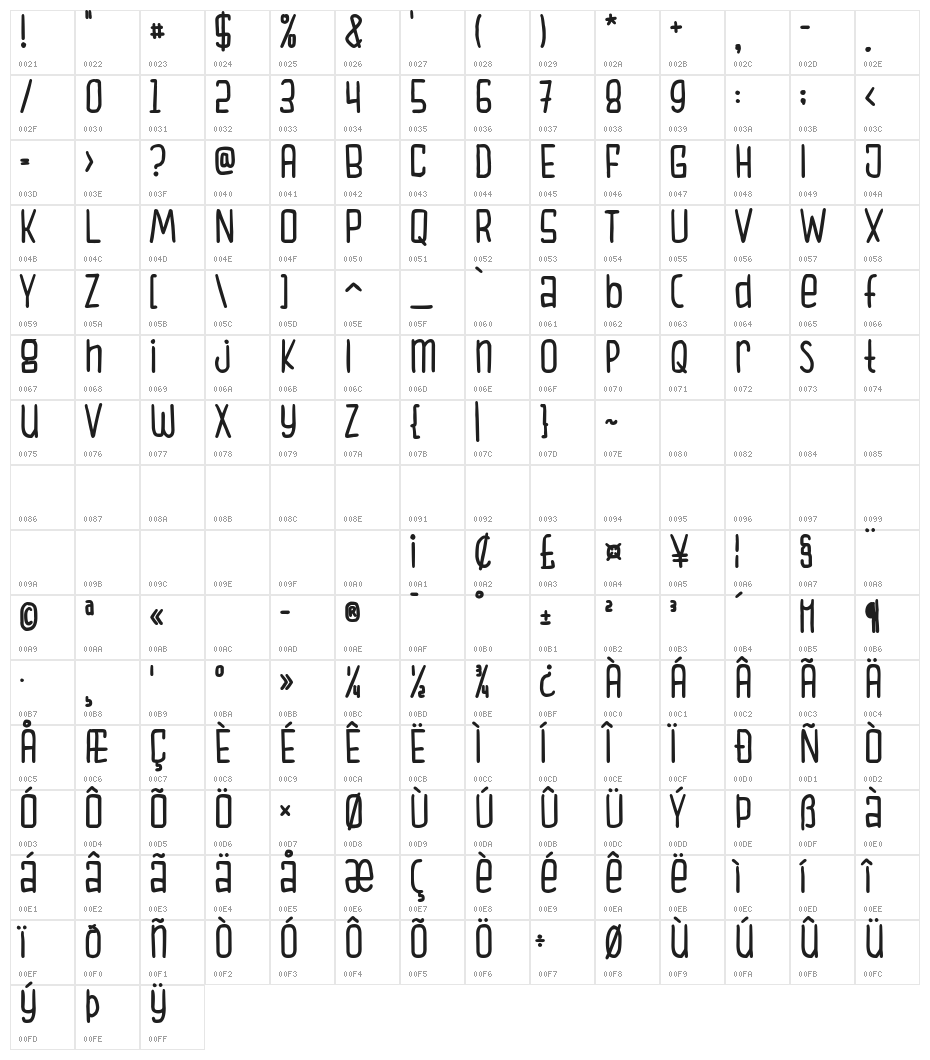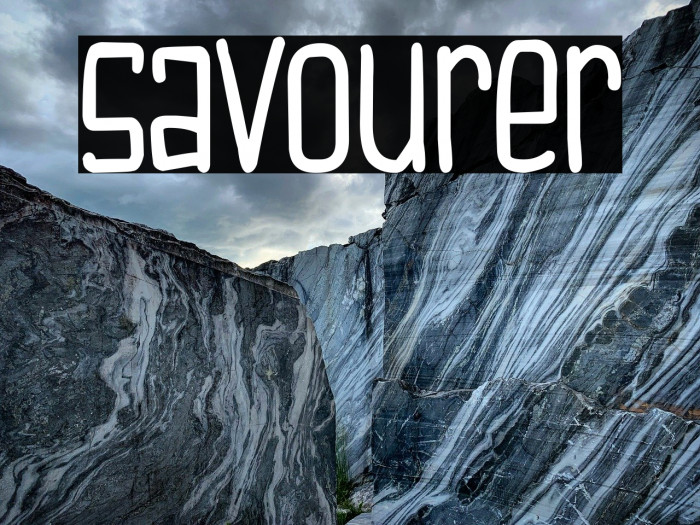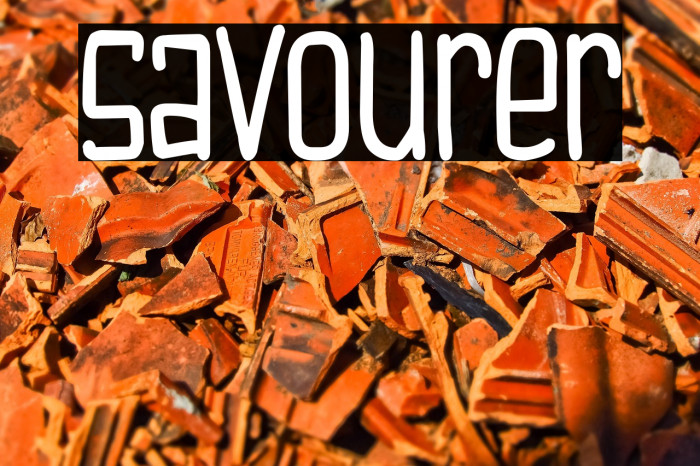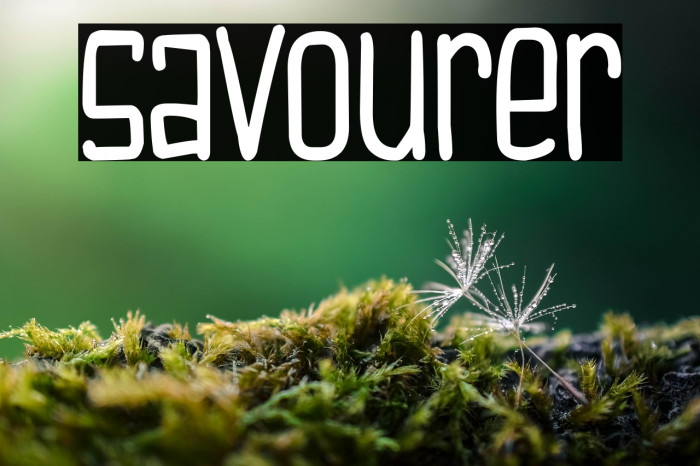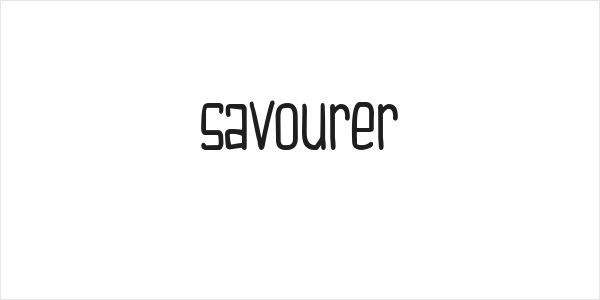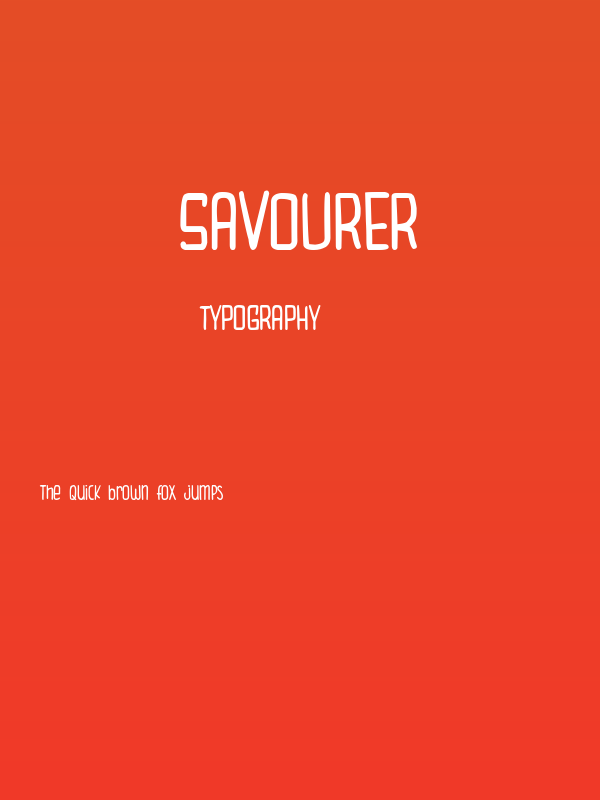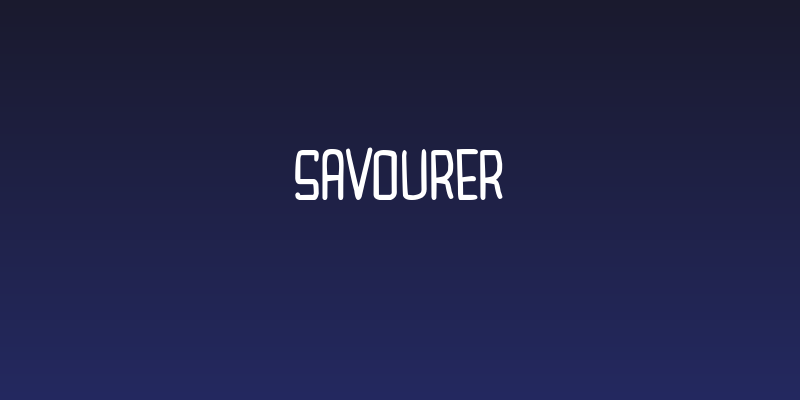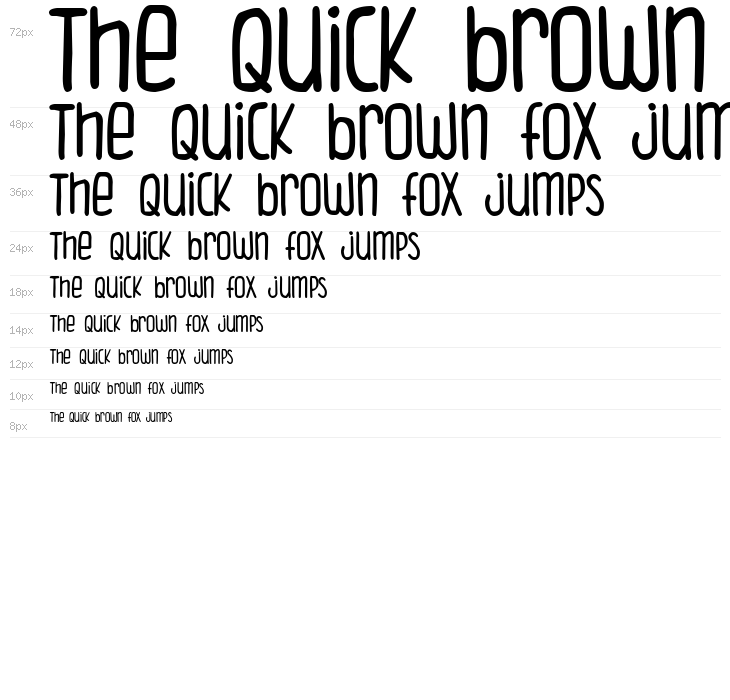
Savourer Font
Savourer Description
This font features a playful and casual handwritten style, characterized by its rounded and slightly irregular letterforms. The uppercase and lowercase letters maintain a consistent height, creating a harmonious flow. The numbers and special characters are designed with the same playful aesthetic, making them suitable for informal and creative projects. The strokes are uniform in thickness, providing a clean and approachable appearance. This font exudes a friendly and inviting vibe, perfect for projects that aim to convey warmth and creativity.
Overall StyleCasual
Use CaseHeadlines, Logos, Informal Text
Proposed ProjectsIdeal for greeting cards, children's books, playful branding, and social media graphics.